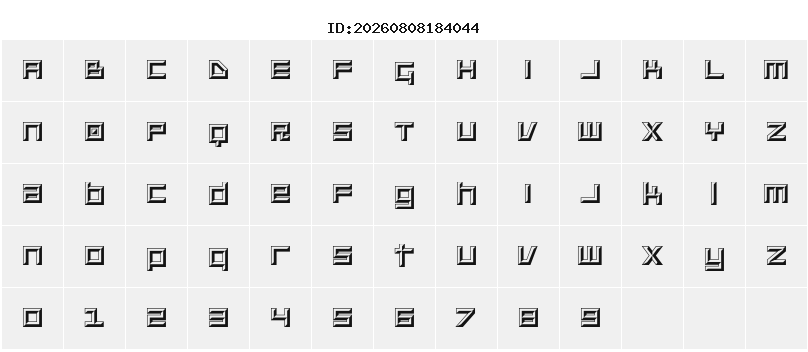
Platinum Beat BTN Chiseled Preview
• Font Name: Platinum Beat BTN Chiseled
• Font ID: Platinum Beat BTN Chiseled
• Full Font Name: Platinum Beat BTN Chiseled
• PostScript Name: PlatinumBeatBTNChiseled
• Character Count: 264
About Platinum Beat BTN Chiseled.ttf
Platinum Beat BTN Chiseled.ttf is a modern, elegant sans-serif font designed for ultimate readability and visual harmony. Perfect for branding, headlines, web design, and print materials.